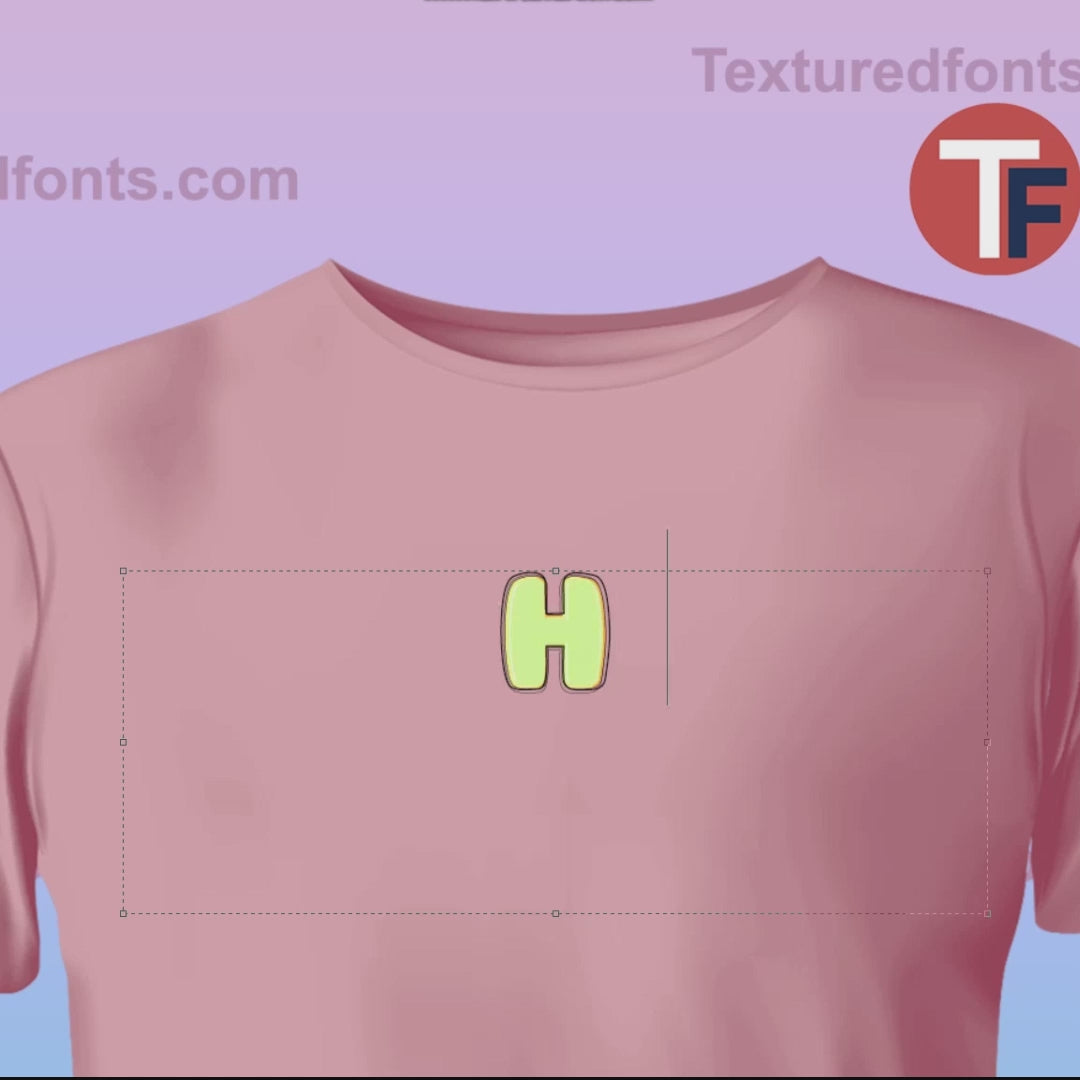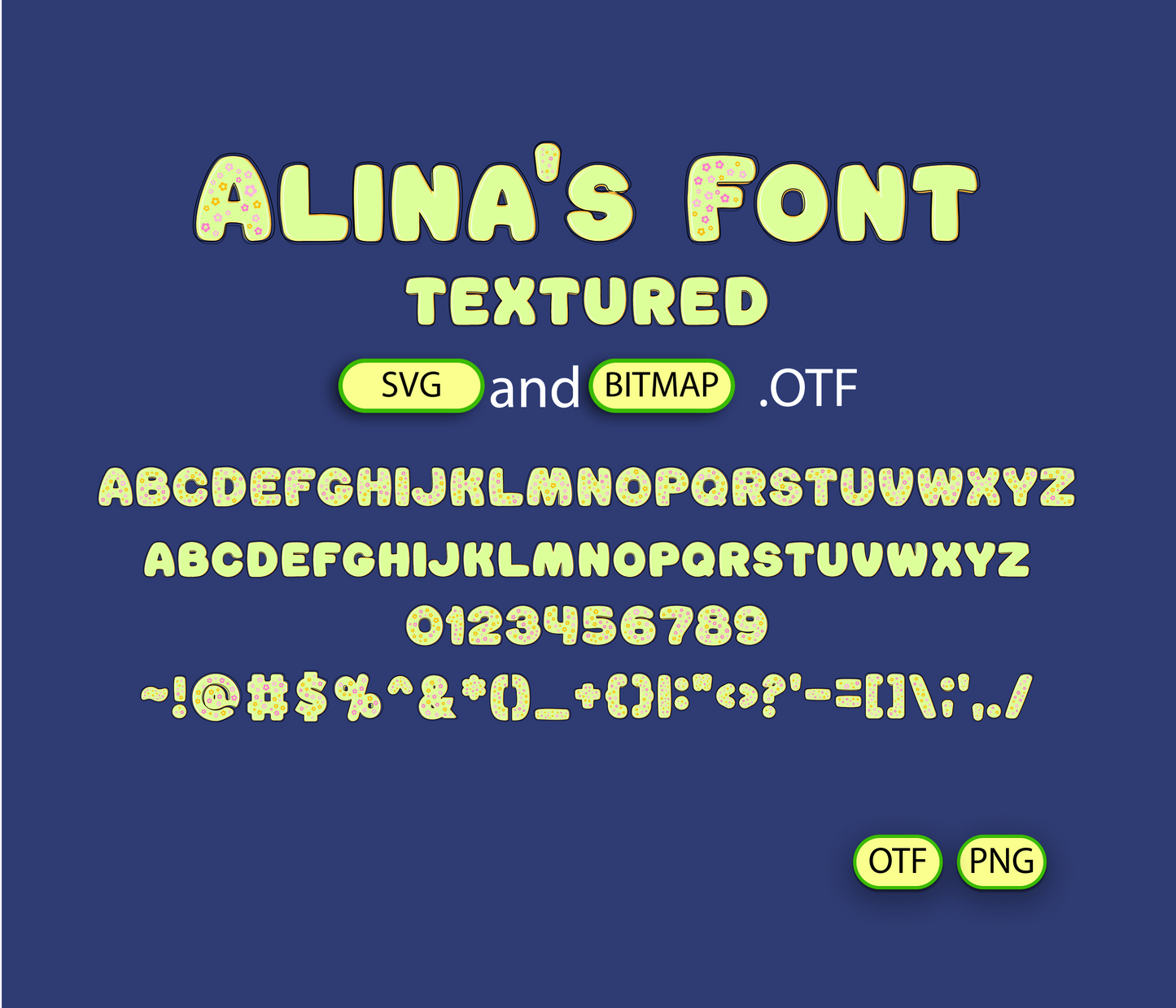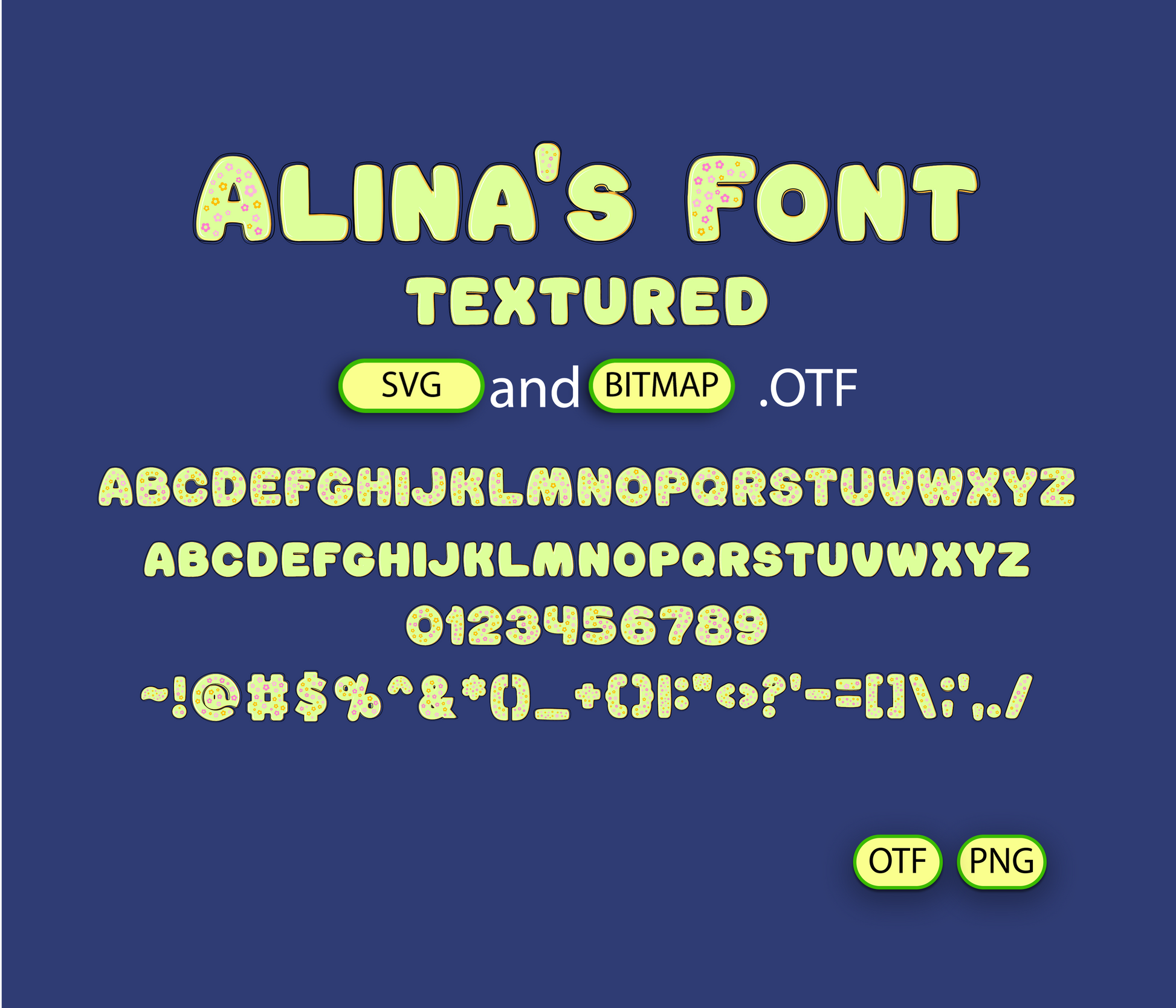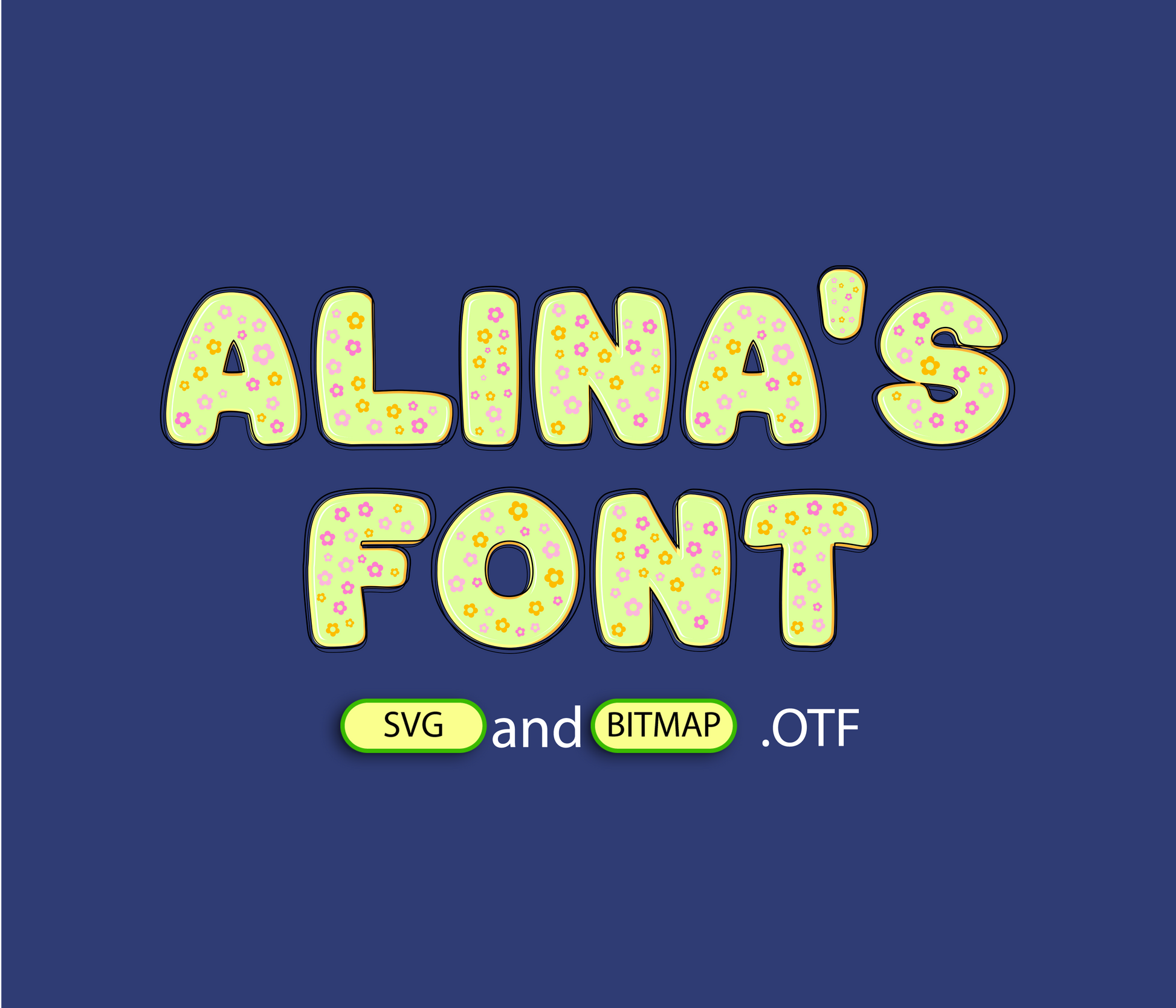
Summer Holiday Typeface Flowers Pattern Font
Dive into the vibrant essence of the sunniest season with our Summer font, a radiant and lively typeface that captures the freedom, warmth, and adventurous spirit of summer. This font is inspired by long days at the beach, spontaneous road trips, and the joyful laughter under the sun, making it perfect for designing vivid summer party invitations, dynamic social media content, and bright, engaging promotional materials for seasonal events. Whether you're announcing a summer sale, creating content for a travel blog, or simply spreading the summer cheer, our "Summer" font adds a burst of sunshine and energy to your projects, evoking the carefree vibe and the colorful palette of the season.
Optimized for use in Canva, the Summer font allows users of all design backgrounds to effortlessly bring the spirit of summer into their digital designs. This font is a versatile choice for anyone aiming to convey messages of fun, relaxation, and warmth, ensuring your summer-themed projects stand out with style and vivacity, from digital banners to printed posters.
To cater to the diverse needs of our users, we've included a FREE no-texture version of the Summer font, ensuring compatibility across all software and making it a flexible option for both digital and print mediums. This adaptability allows the Summer font to seamlessly fit into a wide range of design aesthetics, from minimalist beach event flyers to vibrant seasonal marketing campaigns.
Featuring a comprehensive character set and a user-friendly design, the Summer font is accessible to everyone, inviting users to infuse their projects with the essence of summer. Whether you're creating materials for a summer festival, personalizing your seasonal greetings, or adding a sunny touch to your designs, our Summer font, complete with its no-texture variant, enriches your creations with the spirit of adventure, relaxation, and the joyous energy of summer.